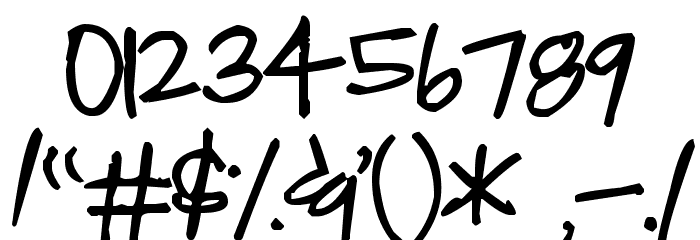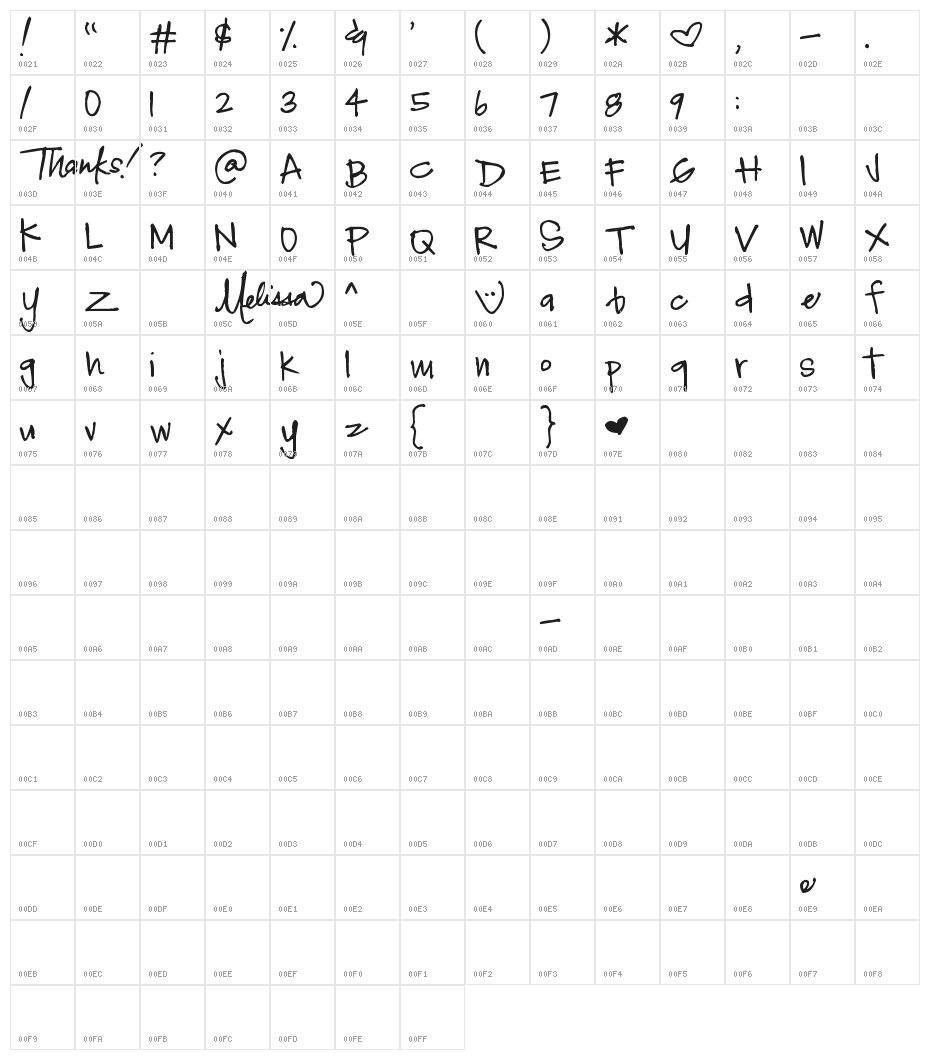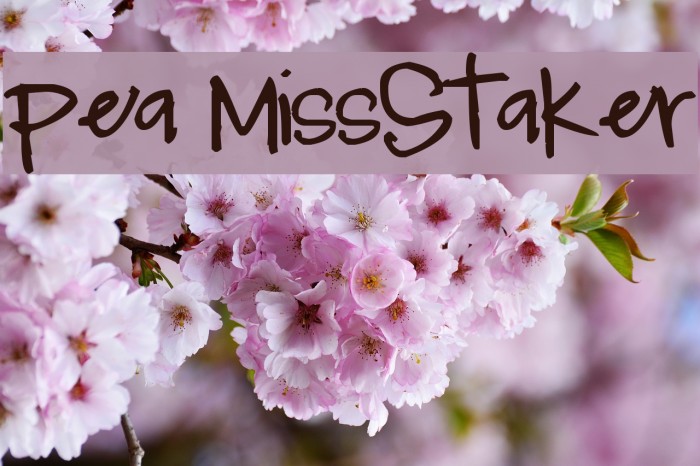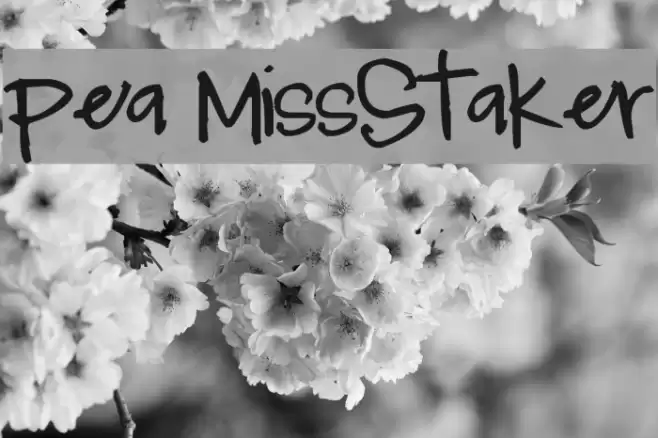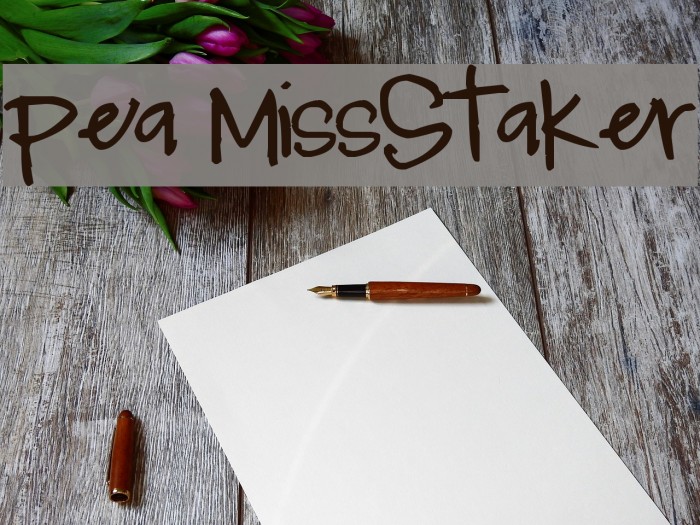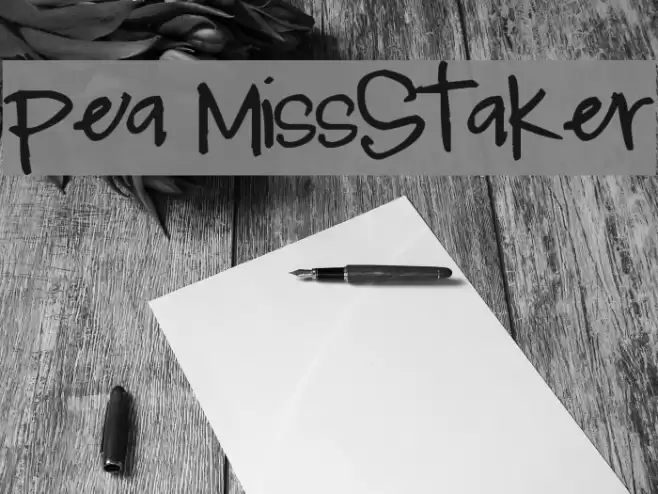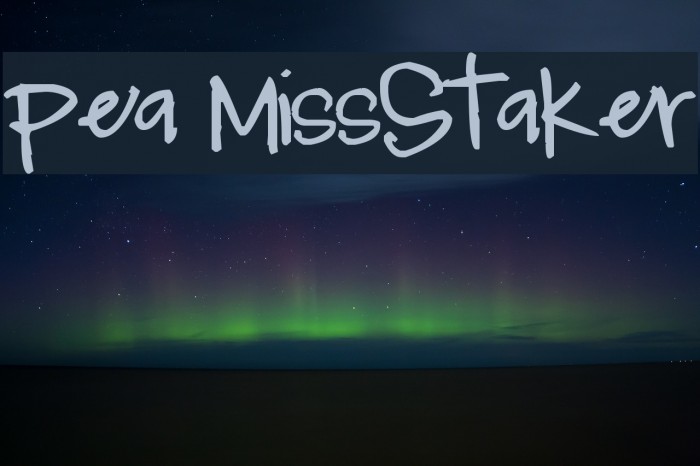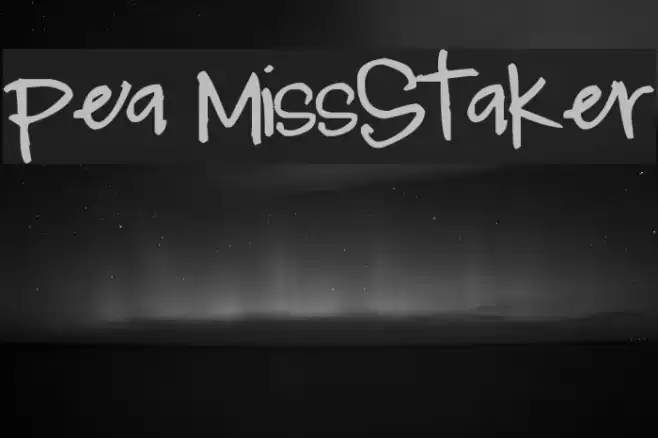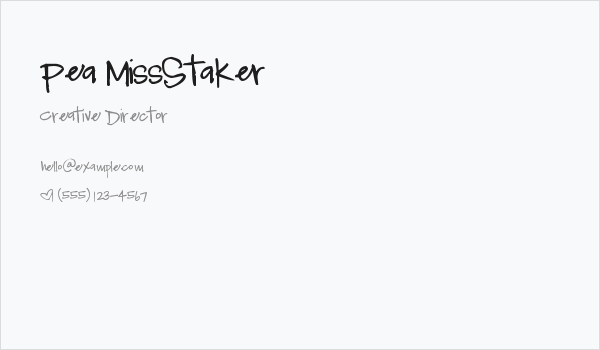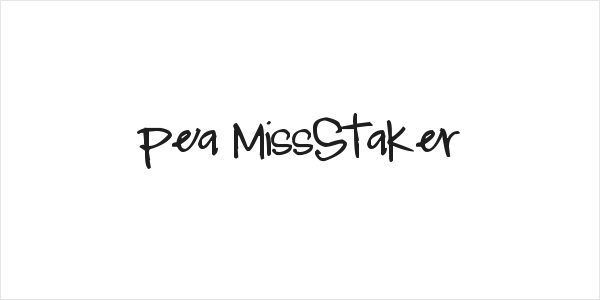
Pea MissStaker Font
Pea MissStaker Description
This font exhibits a playful and casual handwritten style, characterized by its irregular, dynamic strokes and slightly tilted letters. The uppercase and lowercase letters maintain a consistent flow, with a natural, organic feel that mimics authentic handwriting. The numerals and special characters follow the same informal aesthetic, contributing to a cohesive overall appearance. The font's unique charm lies in its imperfect lines and spontaneous look, making it ideal for projects that require a personal touch or a creative flair.